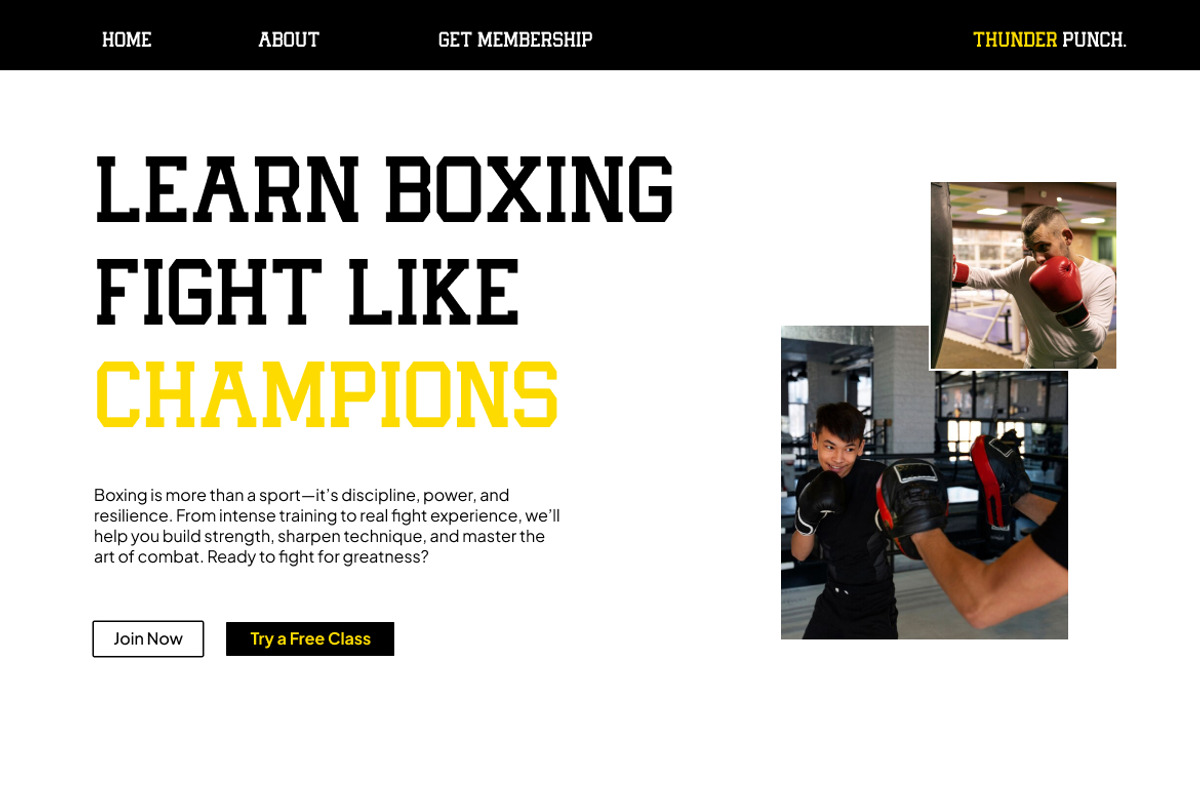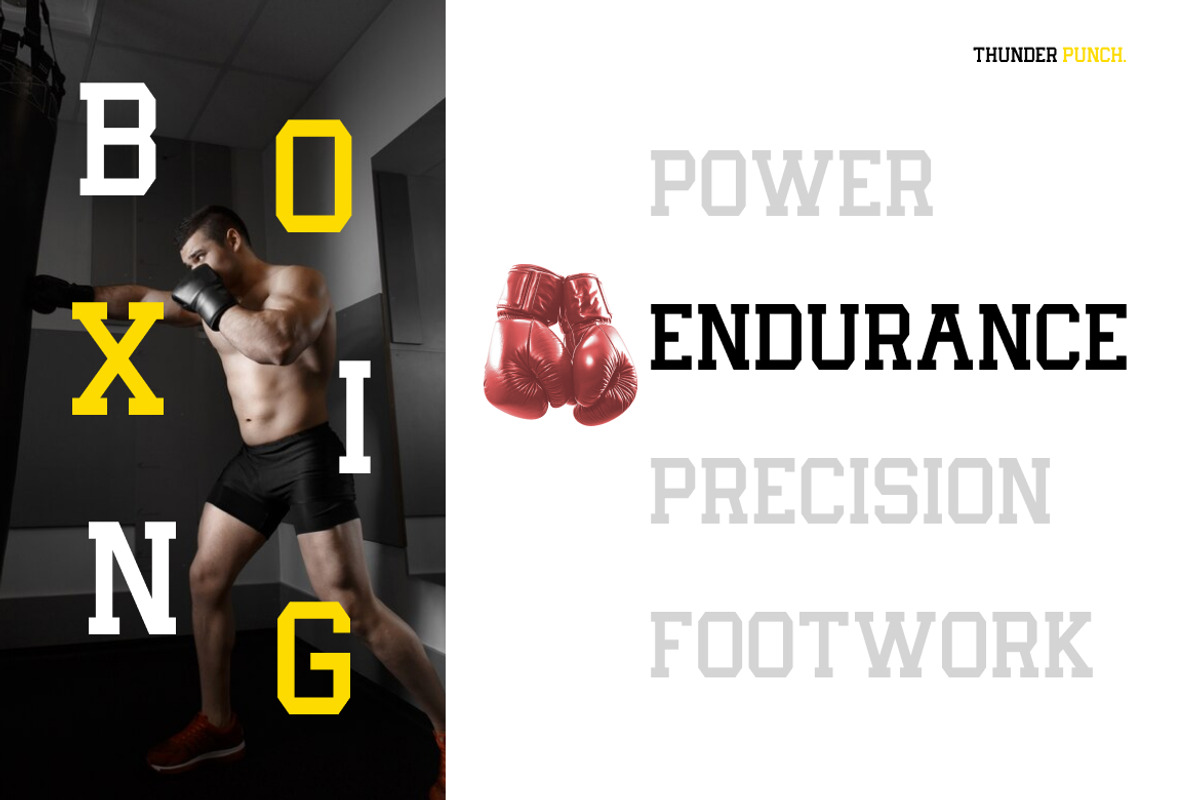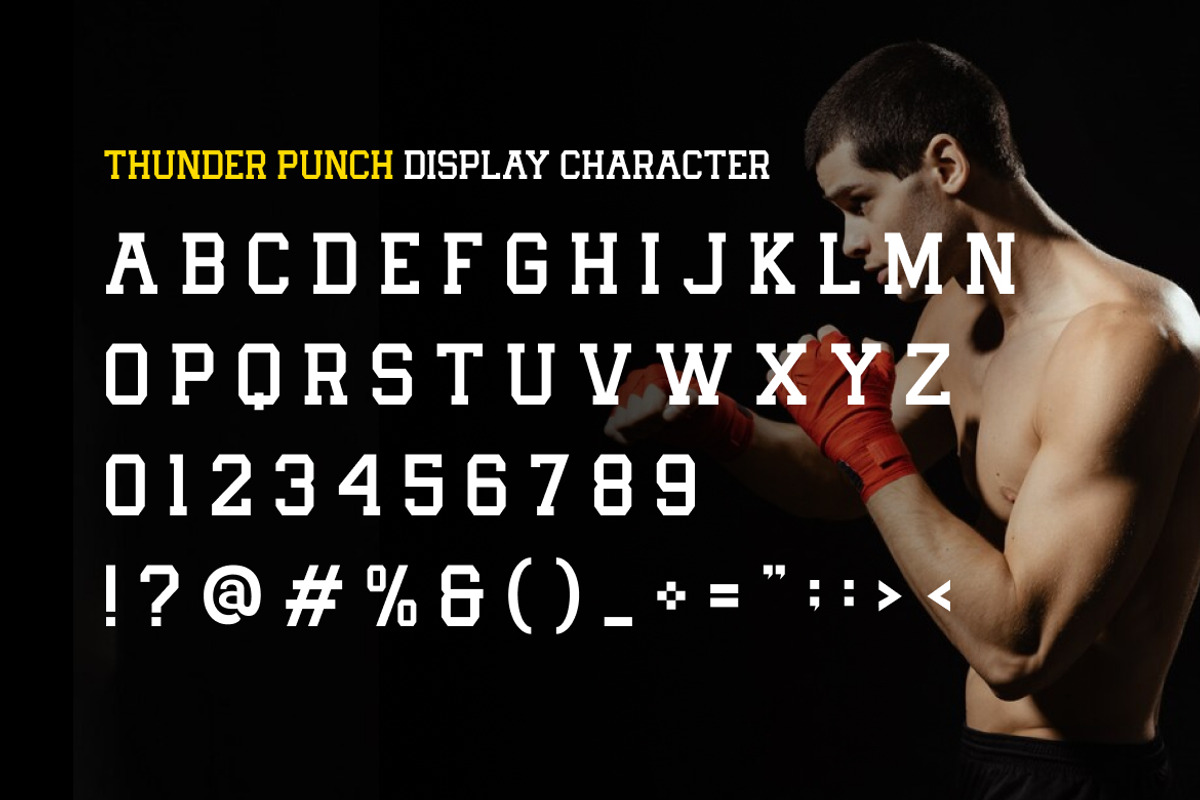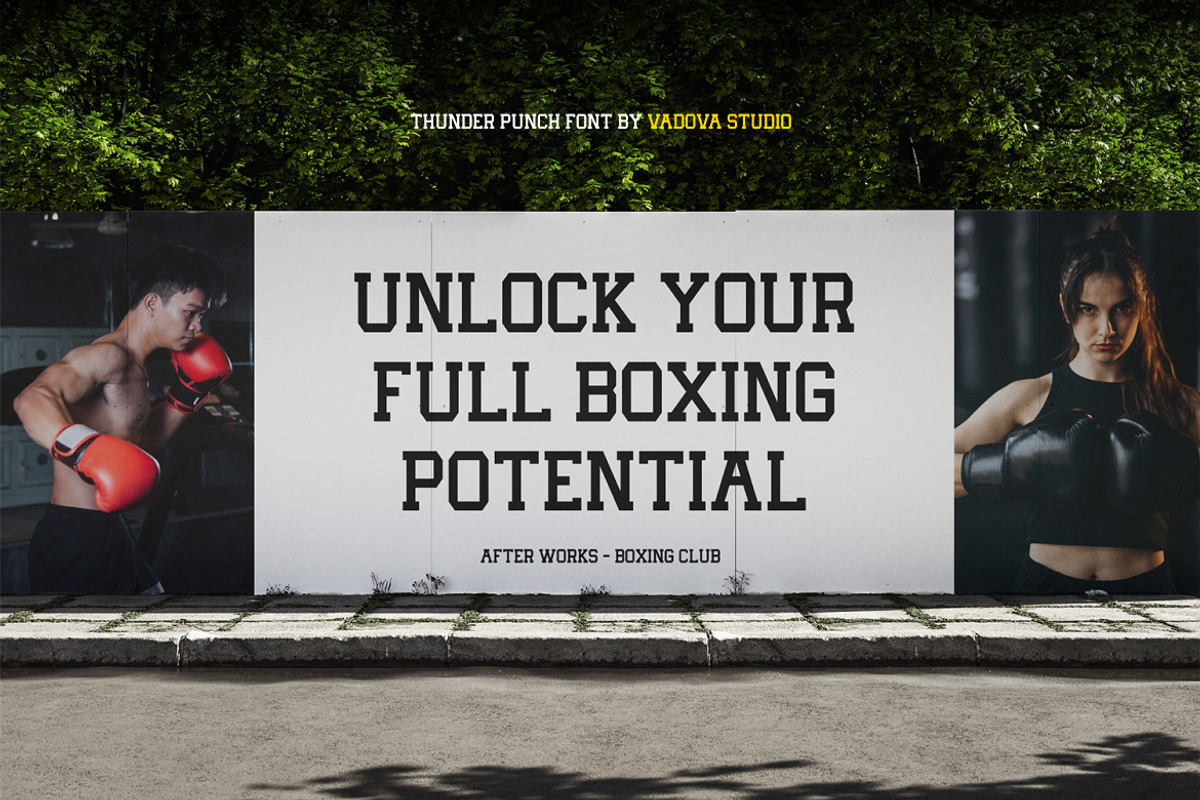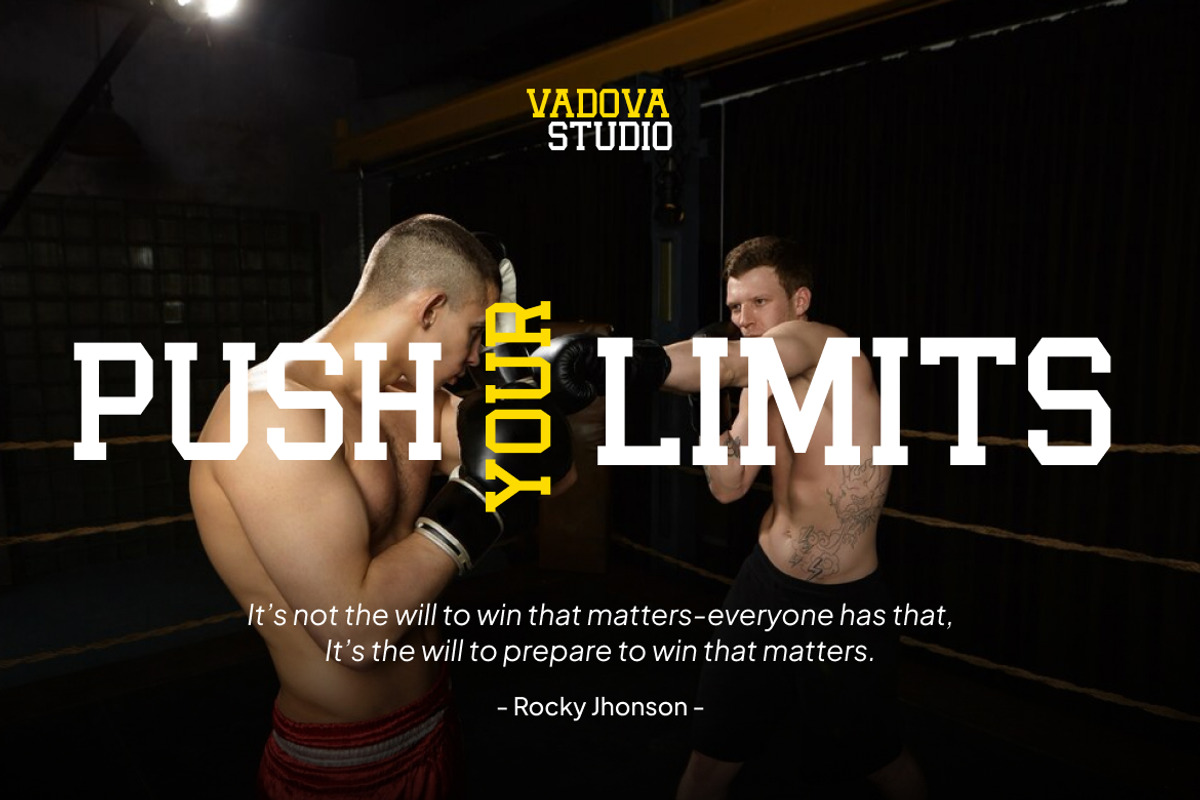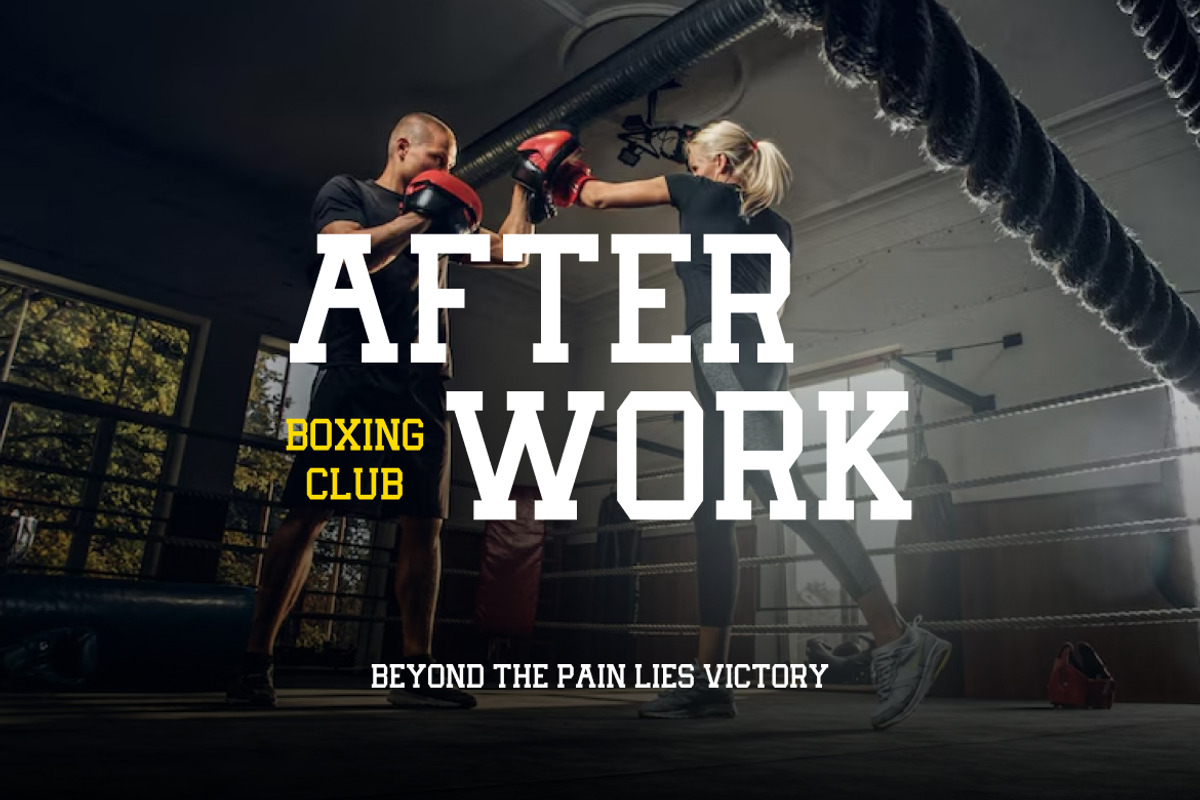
Thunder Punch Sport Varsity Font
Thunder Punch is a bold sport varsity display typeface that captures the spirit of power, speed, and determination. With its strong slab structure and confident geometry, this typeface was built to make an impact in every headline. Inspired by athletic energy and vintage sport lettering, Thunder Punch delivers a dynamic visual punch to any design.
From boxing posters to championship branding, Thunder Punch’s solid letterforms command attention with timeless strength and bold presence. It’s the perfect typeface for those who want to convey energy, discipline, and victory in a powerful visual form.
- Strong slab serif style with athletic and vintage varsity influence
- Bold, blocky letterforms designed for high-impact headlines
- Perfect for sports branding, apparel design, and team identity
- All caps with numerals, punctuation
- Excellent readability for both print and digital use
- Ideal for posters, team uniforms, banners, and sport packaging
- Perfect for gym, boxing, and outdoor event branding
- Delivers energetic and confident typography in every project
- Strong legibility and character consistency
Relevance and Use Cases is perfect for sport branding, varsity logos, boxing posters, gym apparel, championship titles, athletic campaigns, stadium graphics, and motivational product packaging.